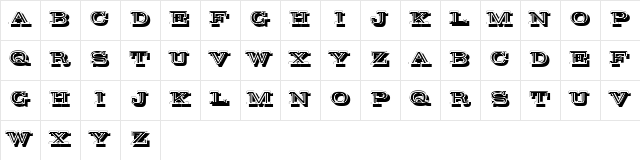
Guilty College brings high-energy athletic personality to the page - its confident, muscular forms are built for impact.
Pro Tip: Use Guilty College in all-caps headlines where its athletic energy can fully express itself. Pair with a solid, simple sans for supporting text.